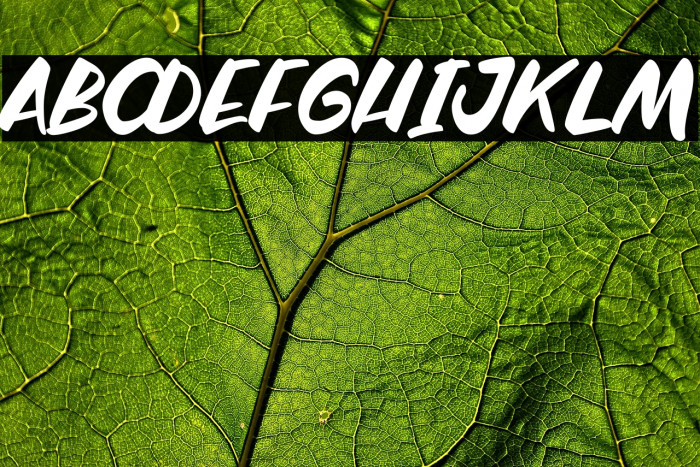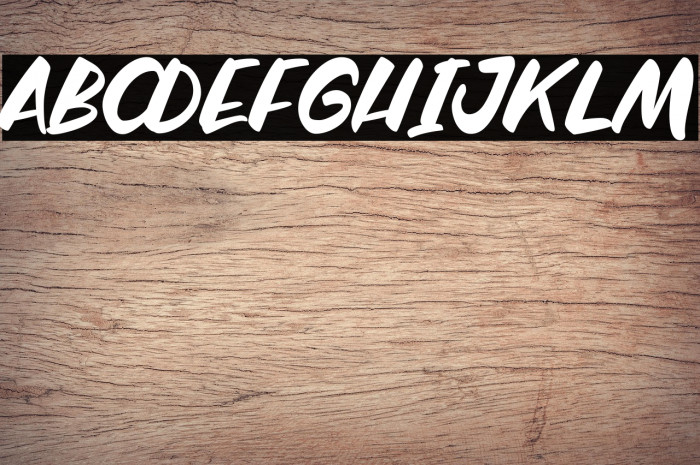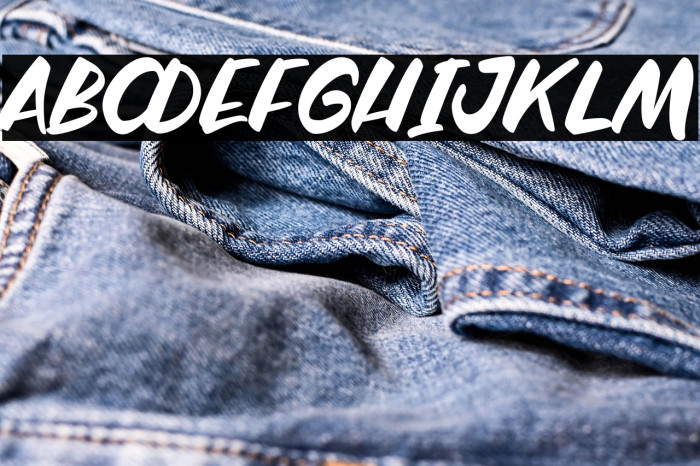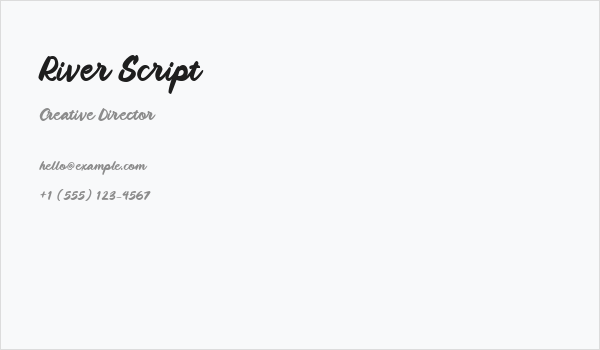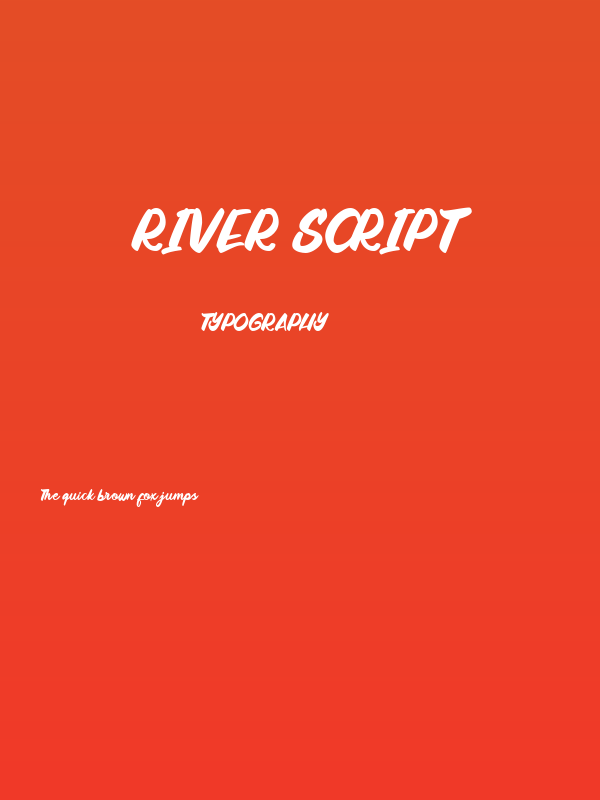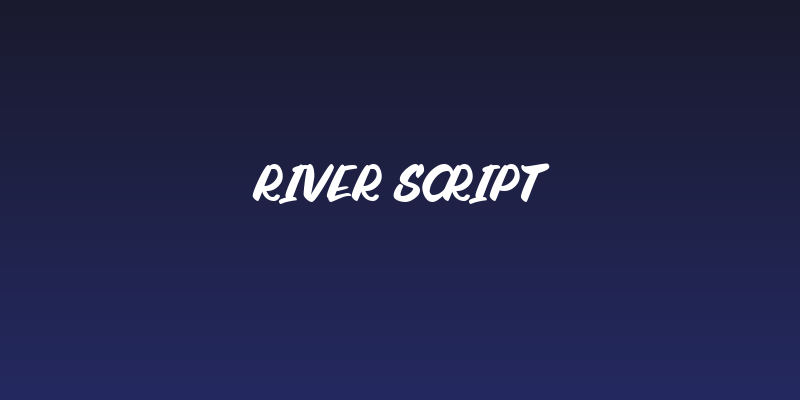
River Script Font
River Script Description
This font exudes a lively and energetic script style, characterized by its bold and fluid strokes. The letters are interconnected, creating a seamless flow that mimics natural handwriting. The uppercase letters are slightly more angular, while the lowercase letters maintain a smooth, rounded appearance. The numerals and special characters are consistent with the overall style, ensuring a cohesive look across all text. This font's dynamic nature makes it suitable for projects that require a personal touch or a sense of movement.
| Proposed Projects | Ideal for branding, invitations, greeting cards, and any design that benefits from a personal, handwritten touch. |